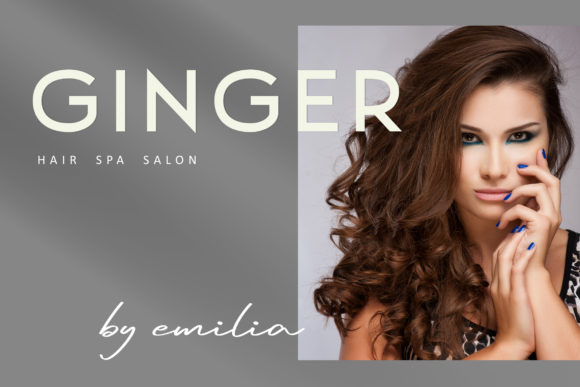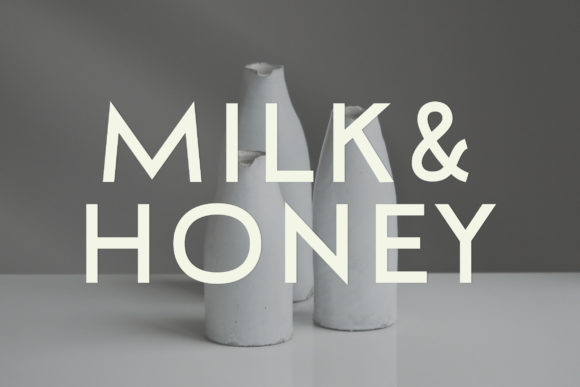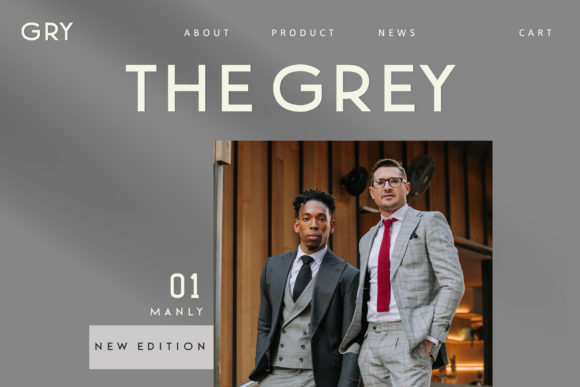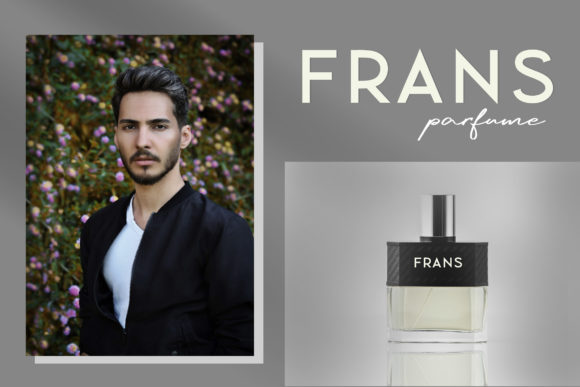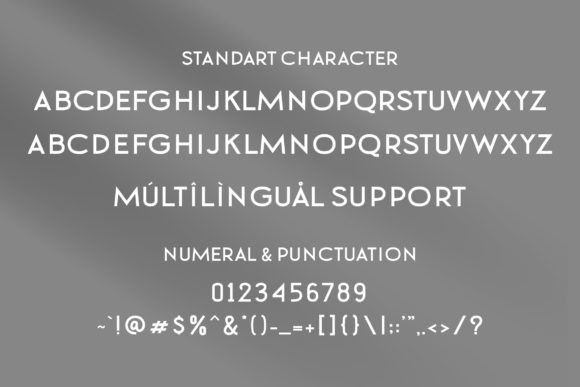
Introduction to Modiz Font
As you sit in front of your computer, staring at a blank canvas, ideas begin to swirl in your mind. You envision a beautifully crafted letterhead, a stunning title that sets the tone for your creative project. But what font will you choose to bring your vision to life? Look no further than the Modiz Font, a simple yet elegant sans serif font that is sure to elevate your design.
With its clean lines and high-quality design, the Modiz Font is the perfect addition to any design resource. Whether you’re a seasoned designer or just starting out, this versatile font is sure to impress. And the best part? It’s available for a free download, complete with a transparent background, making it easy to integrate into your next creative project.
As a valuable resource for designers, the Modiz Font offers a level of flexibility and sophistication that is hard to find. Its simplicity makes it the perfect choice for a wide range of applications, from titles and letterheads to stationery and beyond.
Key Features of Modiz Font
- High-quality design resource suitable for various creative projects, including digital art, graphics, and more.
- Modiz Font is available in 3 different styles, each with its unique characteristics and design elements, providing users with a versatile font option.
- Includes a wide range of glyphs and characters, including international characters and symbols, to cater to diverse design needs.
Honest Review: Modiz Font
As a designer, I’m always on the lookout for high-quality design resources that can elevate my creative projects. The Modiz Font caught my eye recently, and I decided to give it a try.
Here are the things that work well: ✨
- Unique and modern design style that sets it apart from other fonts.
- High quality and crisp typography, making it perfect for digital designs.
However, I did encounter a few limitations: ⚠️
- Limited character set, which may not be ideal for longer texts.
- No bold or italic versions available, which can be a drawback for some designs.
Overall, I’m impressed with the Modiz Font, and I think it’s a great addition to any designer’s toolkit. While it may have some limitations, its unique design style and high quality make it a valuable resource for creative projects.
Tips for Getting the Most Out of Modiz Font
Use the Modiz Font on a transparent background to create a clean and modern look. Experiment with different font sizes and styles to add visual interest to your design. You can also use the Modiz Font in combination with other design elements to create a unique and eye-catching design.
Common Use Cases for Modiz Font
The Modiz Font is suitable for a wide range of creative projects, including logos, business cards, and social media graphics. You can also use the Modiz Font in presentations, reports, and other documents where a clean and modern font is needed.
What is the recommended resolution for using the Modiz Font?
The Modiz Font is designed to work well at various resolutions, including 72 dpi, 96 dpi, and 300 dpi. For optimal results, we recommend using the font at a resolution of 300 dpi or higher, especially when working on high-quality prints or digital designs. This will ensure that the font appears crisp and clear.